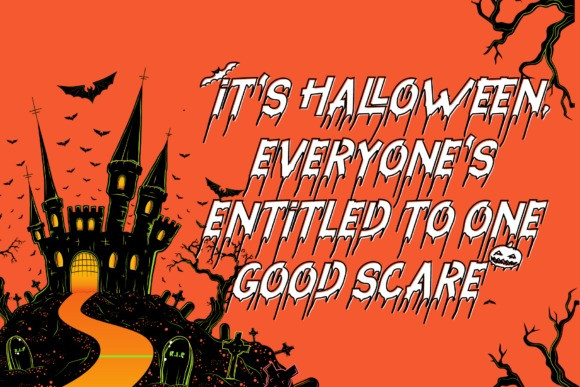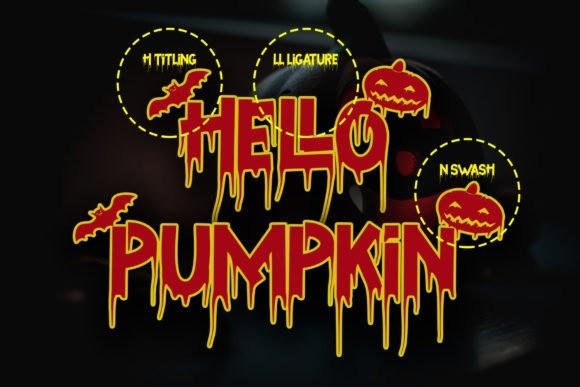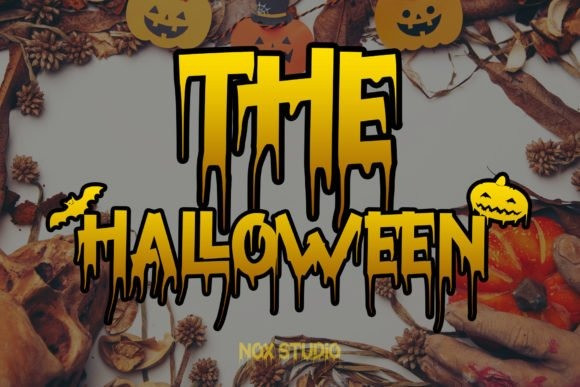
Calame Font , With a childish style, it will be very suitable for your project, which is related to children. Such as story books, illustrations, comic books, t-shirts, posters, greeting cards, logos, branding, stickers, svg, crafting.
Calame Font
| Designer Name: | Martin Calame |